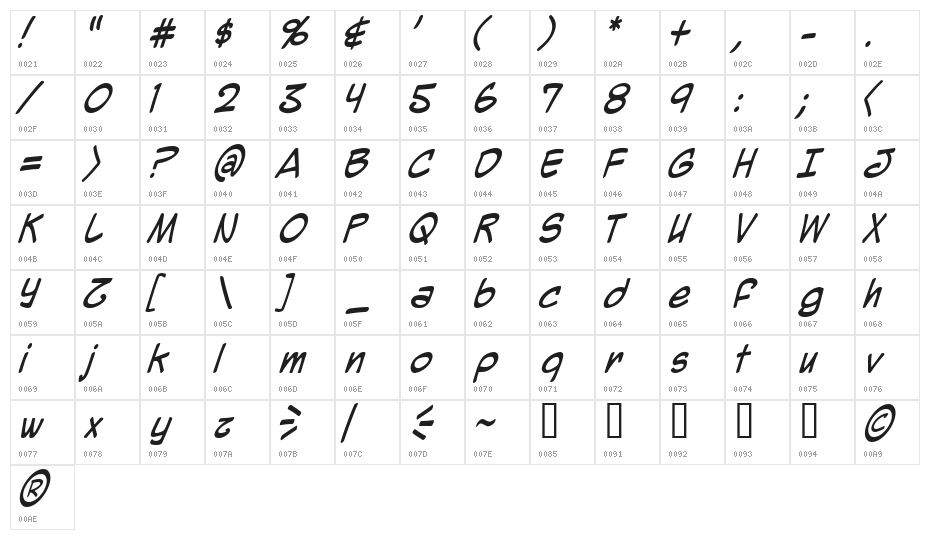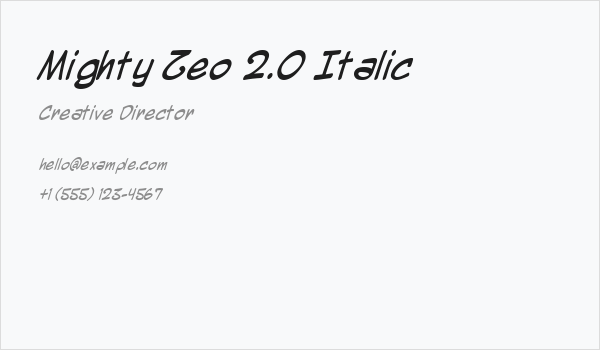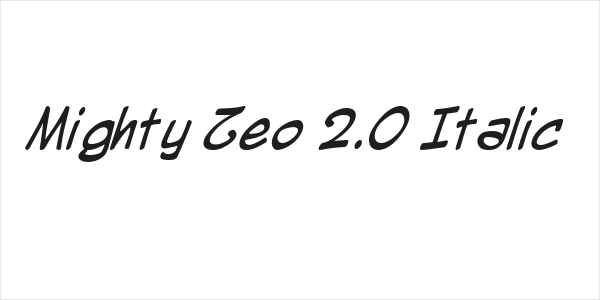
Mighty Zeo 2.0 Italic Font
Mighty Zeo 2.0 Italic Description
This font features a dynamic and energetic script style, characterized by its fluid and continuous strokes. The letters are slightly slanted, giving a sense of motion and speed. The uppercase letters are bold and prominent, while the lowercase letters maintain a consistent flow, enhancing readability. The numerals are well-integrated into the design, matching the overall aesthetic. Special characters are creatively styled, adding to the font's playful and informal vibe. The font's design is both modern and approachable, making it suitable for a variety of creative applications.
| Proposed Projects | Ideal for branding, packaging, posters, and social media graphics where a lively and informal touch is desired. |